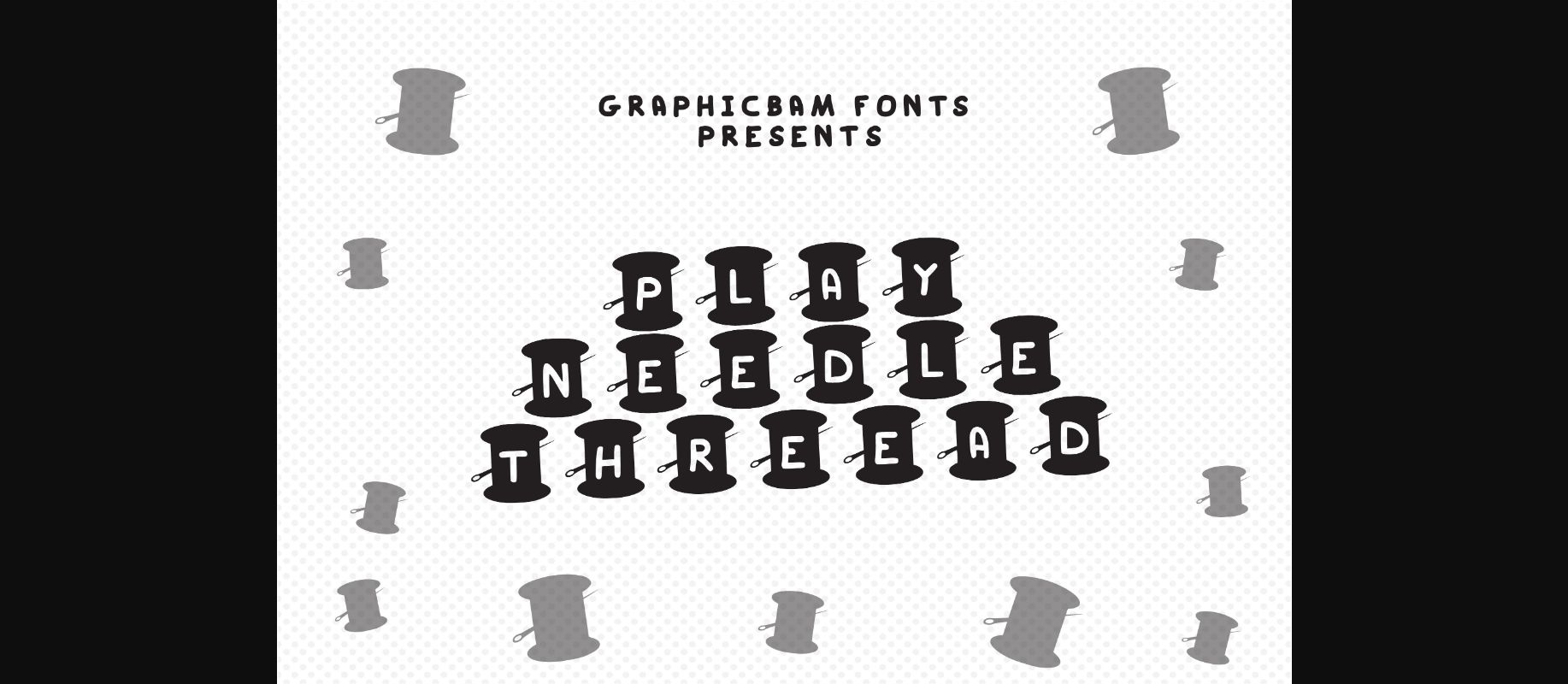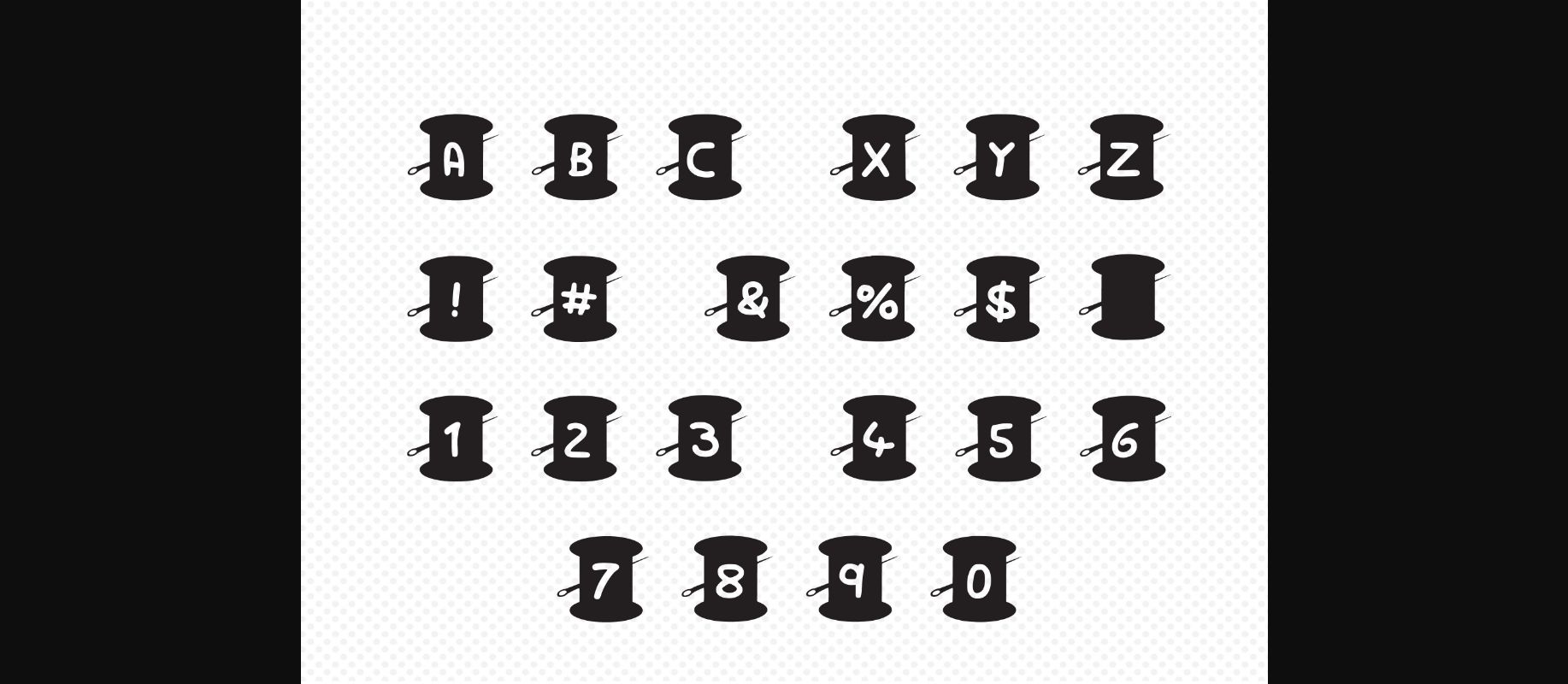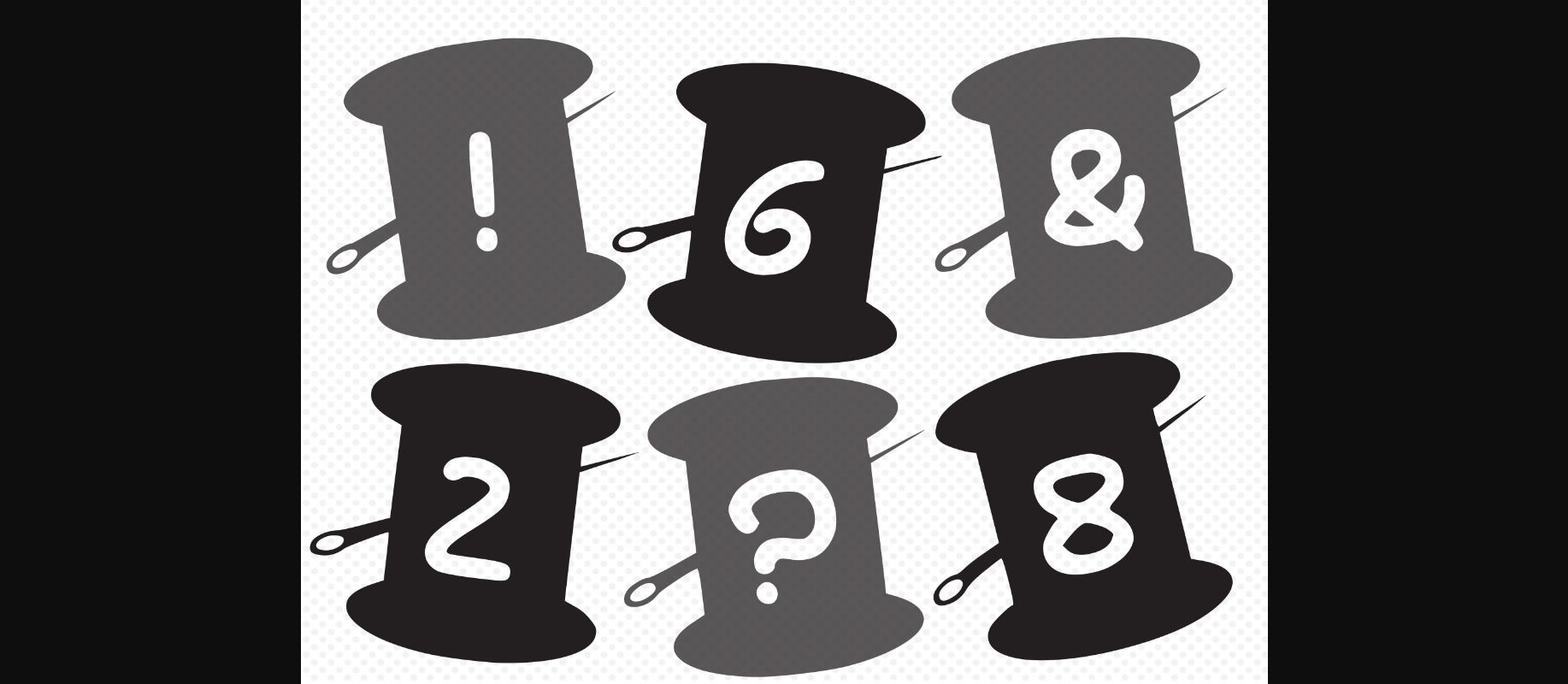
Play Needle Thread Font
About Play Needle Thread Font
Play Needle Thread is a crafty and cool decorative font suitable for your most creative projects and ideas! Use it for product packaging, branding, sewing-related marketing materials, or anything else.